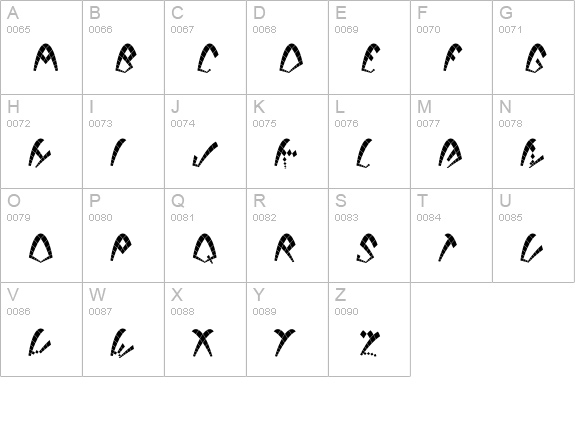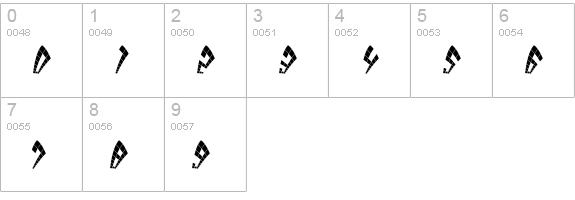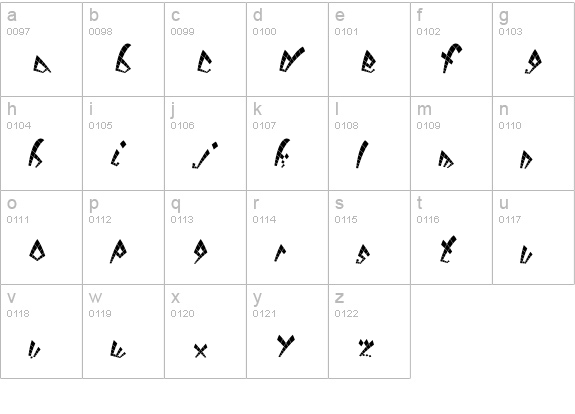
DackBroken Font Details
DackBroken font is a stunning display typeface that exudes a sense of edginess and rebelliousness. With its broken and jagged letterforms, it adds a unique and captivating touch to any design project. This font is perfect for creating eye-catching headlines, posters, and logos that demand attention. What sets DackBroken font apart is not only its striking aesthetic, but also the fact that it is available for free. Yes, you read that right! This incredible font can be downloaded without any cost, making it an accessible and budget-friendly option for designers and enthusiasts alike. To get your hands on this one-of-a-kind font, simply head over to FontsMarket.com. There, you will find DackBroken font, along with a wide selection of other high-quality fonts, all available for free download. FontsMarket.com is a trusted source for designers, providing a vast collection of fonts that cater to various design needs. So, whether you're working on a personal project or a professional assignment, DackBroken font is the perfect choice to make your design stand out from the crowd. Download it today from FontsMarket.com and let your creativity flow freely with this captivating and visually striking typeface.